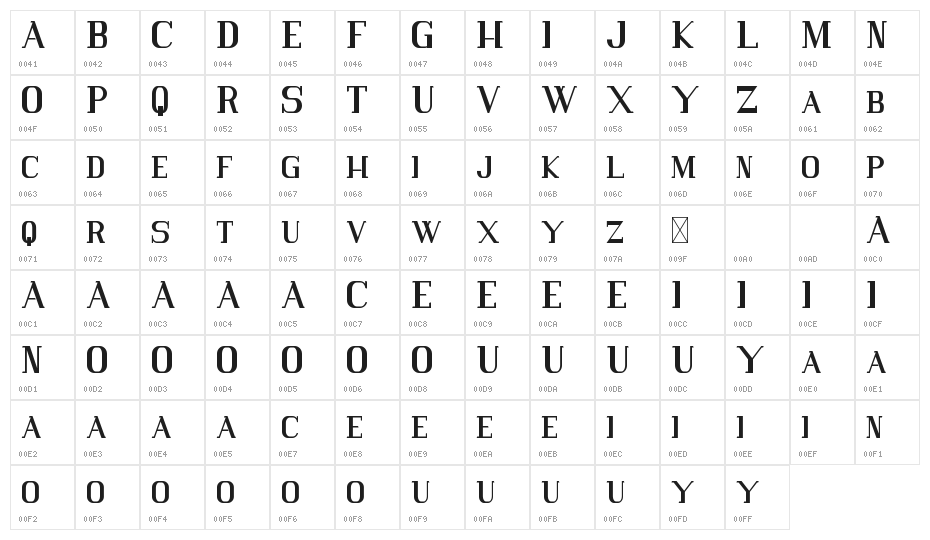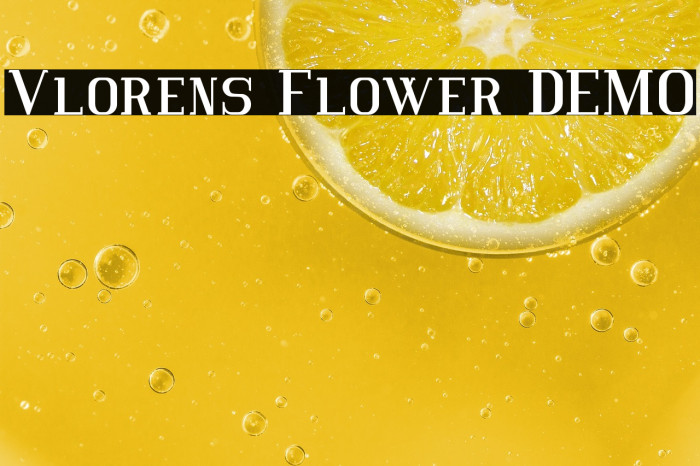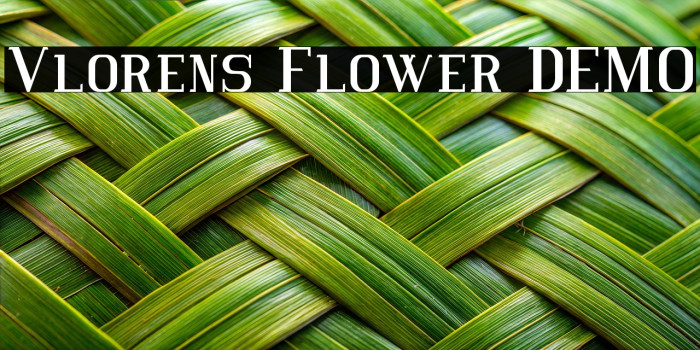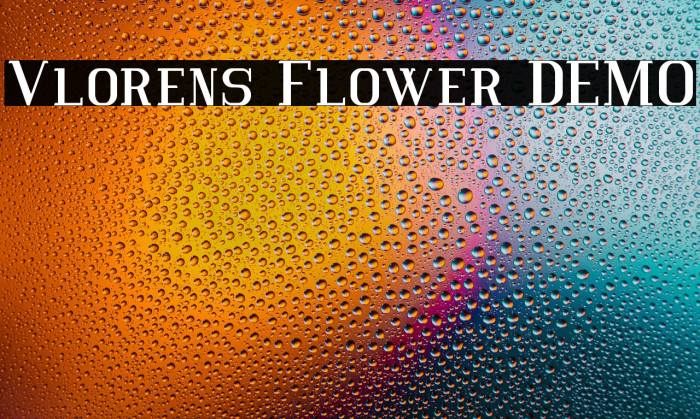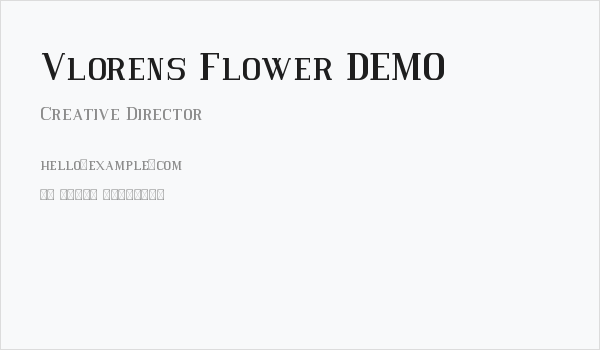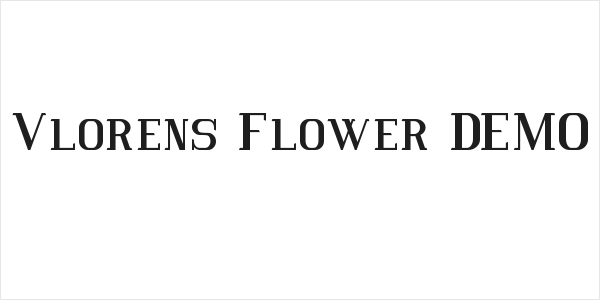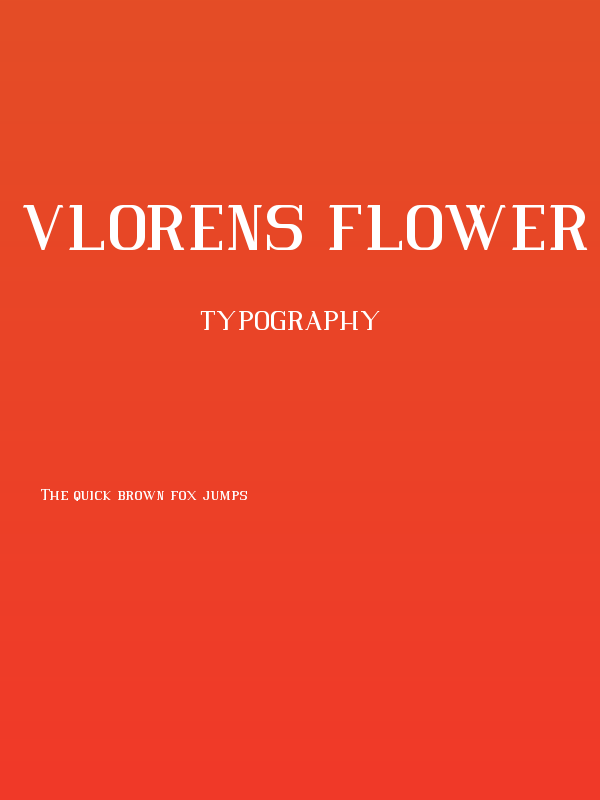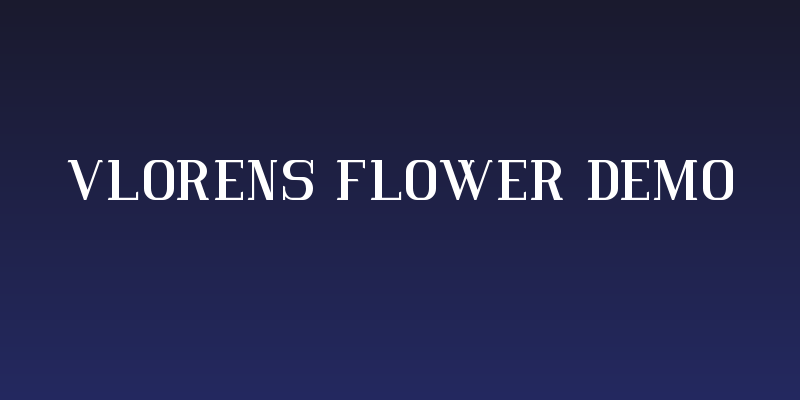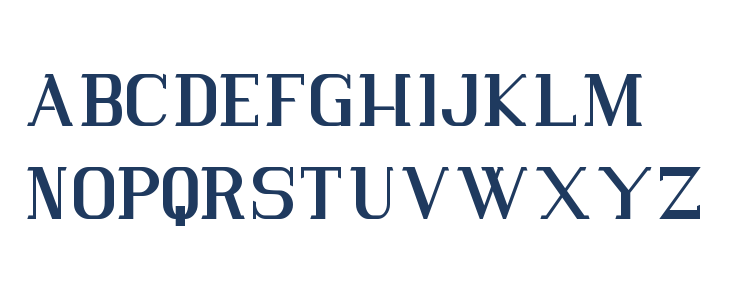
Vlorens Flower DEMO Font
Vlorens Flower DEMO Description
This font exhibits a bold and striking appearance with a modern twist. The characters are designed with a strong serif presence, giving them a classic yet contemporary feel. The uppercase letters are particularly prominent, featuring sharp edges and a slightly condensed form that enhances their visual impact. The lowercase letters maintain a consistent style, complementing the uppercase with a balanced and cohesive look. The numerals are clear and easy to read, matching the overall aesthetic of the font. Special characters are included, maintaining the same design principles, ensuring versatility across various applications.